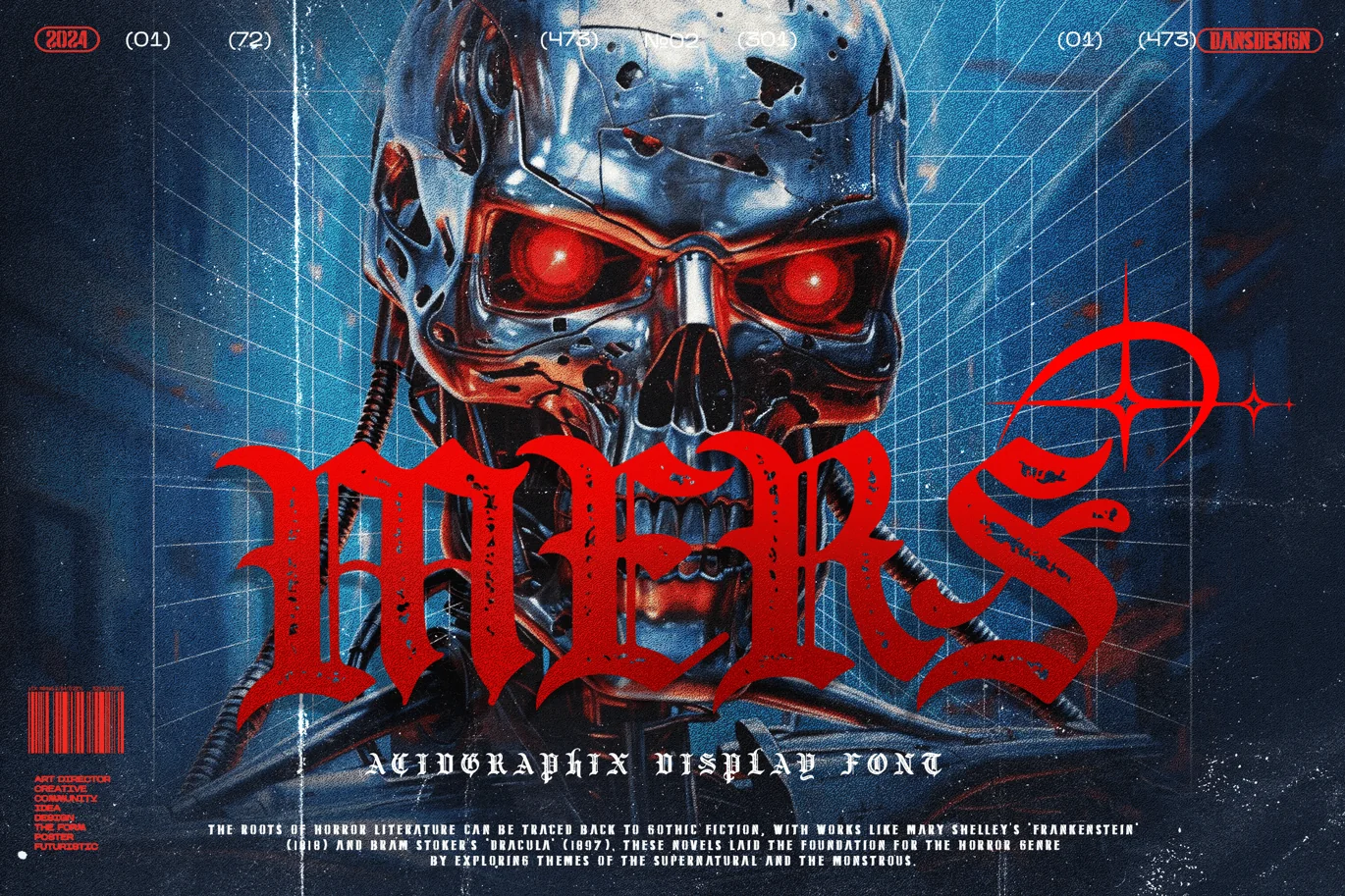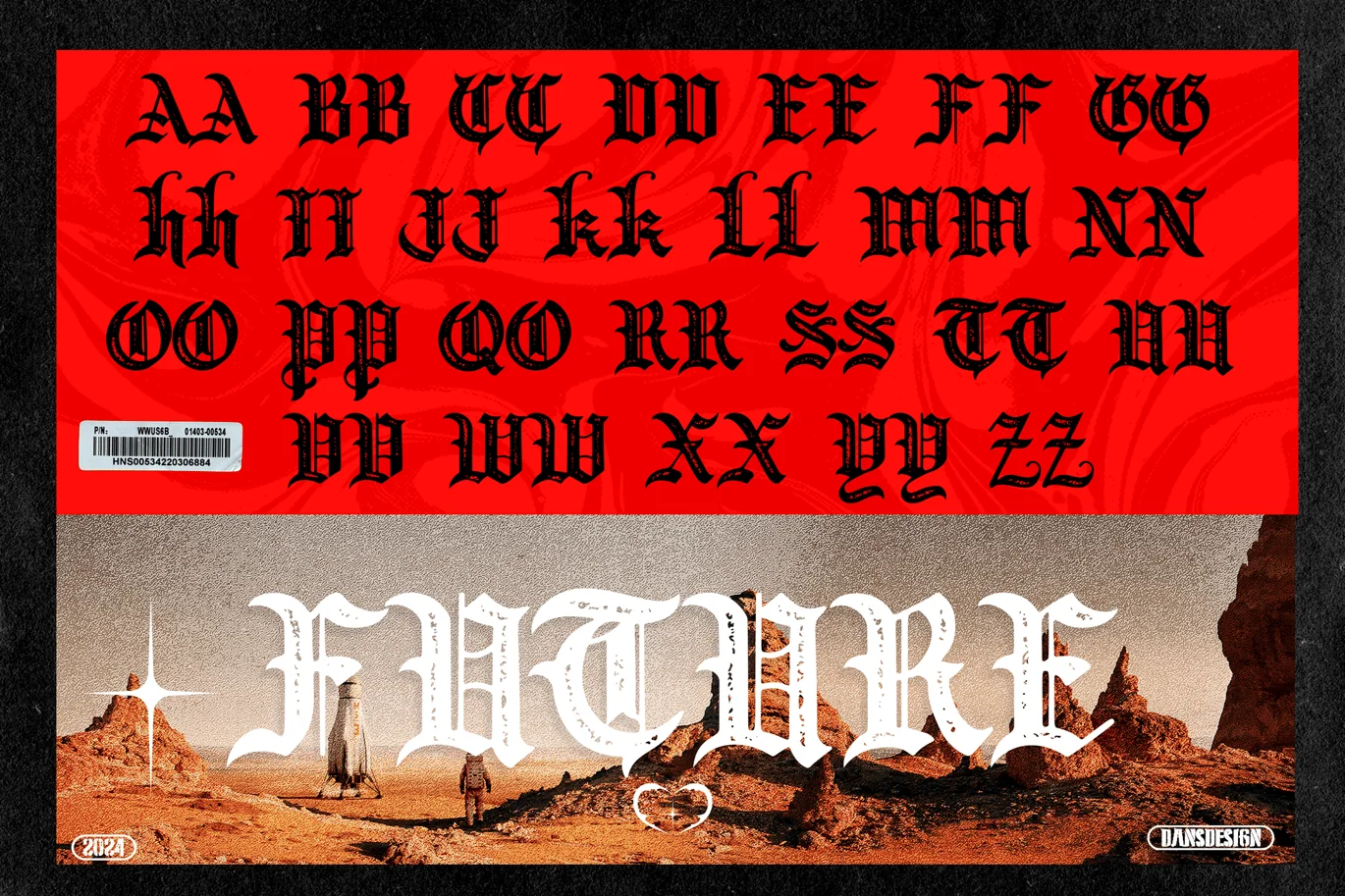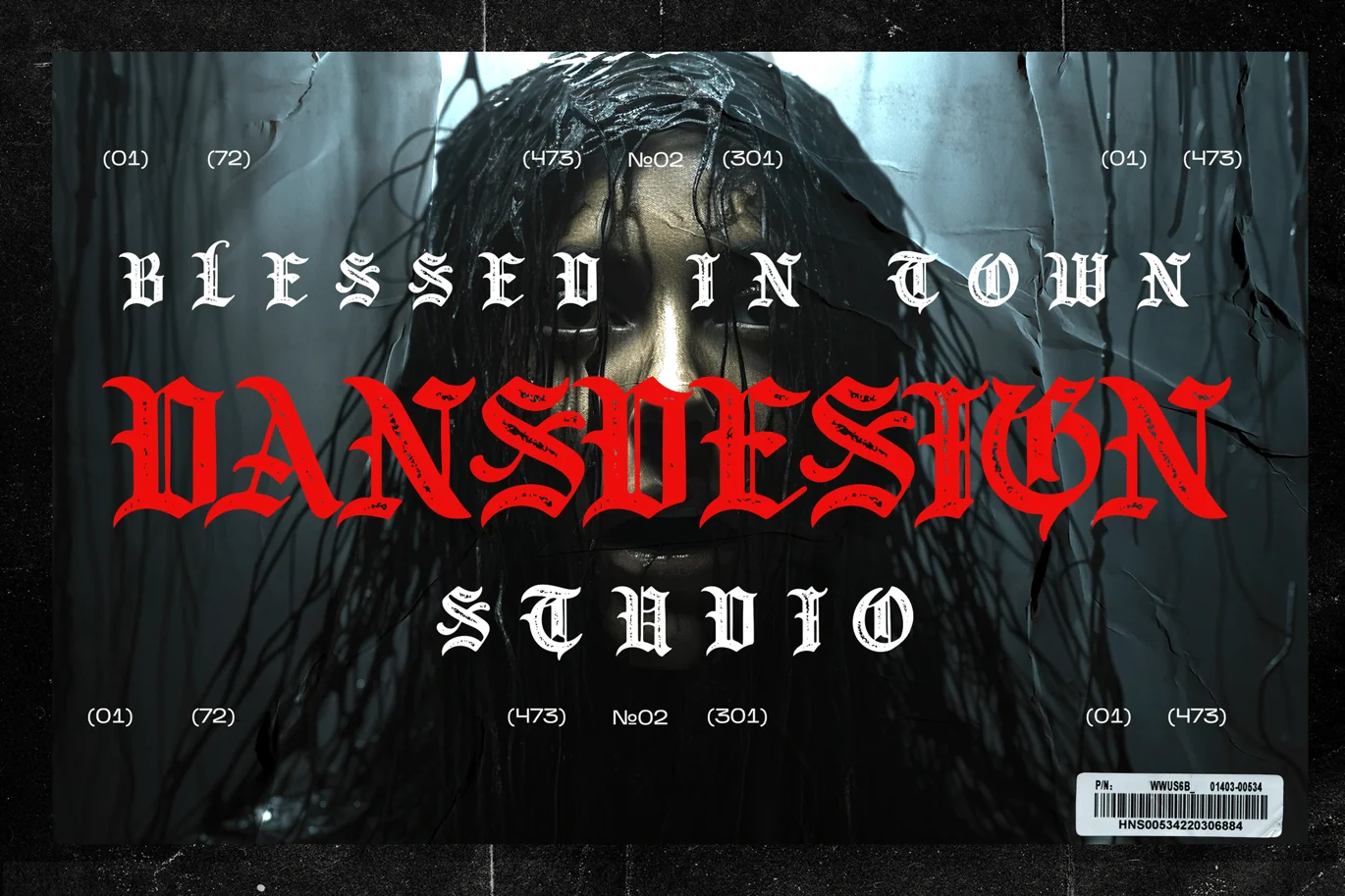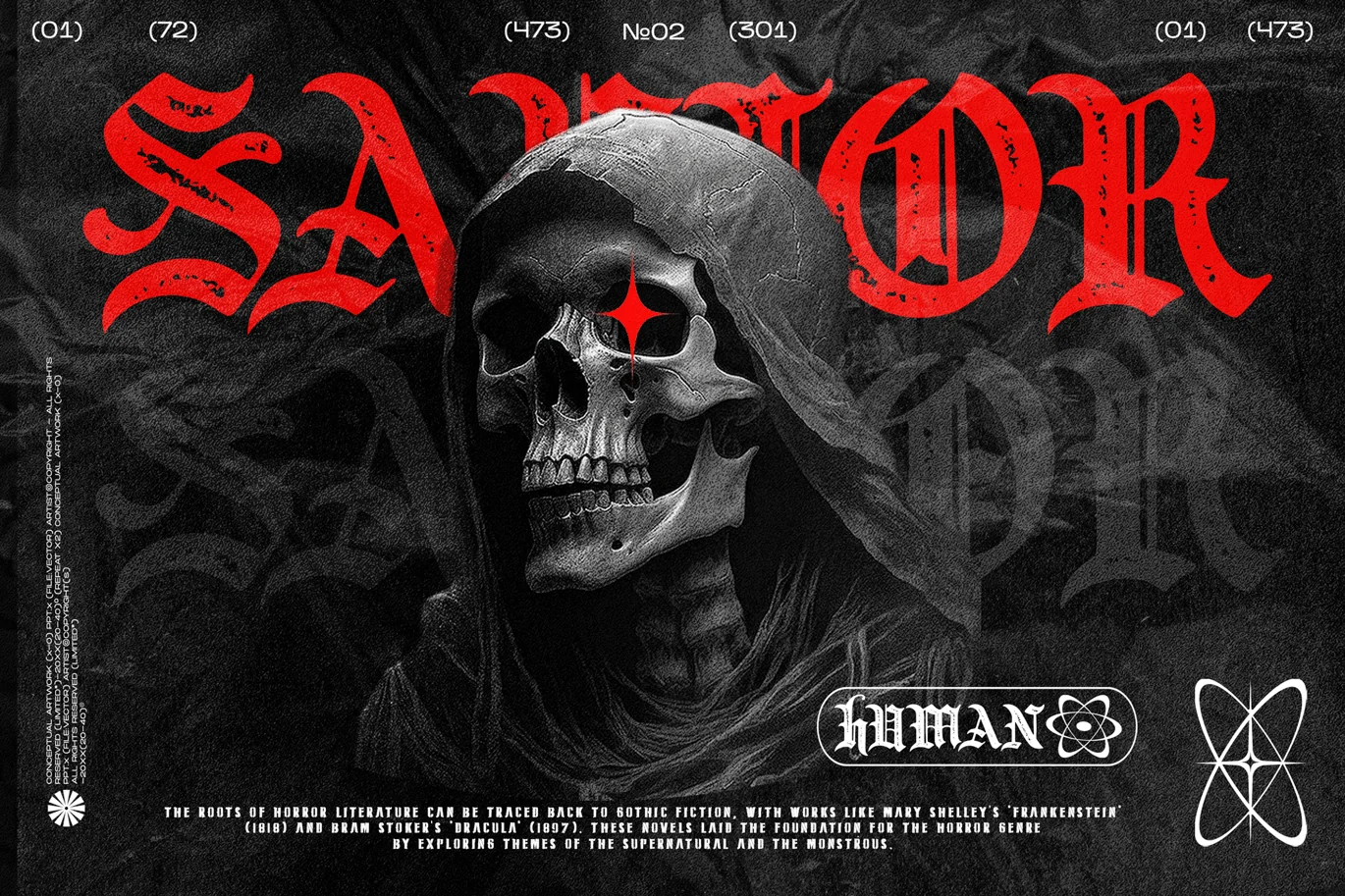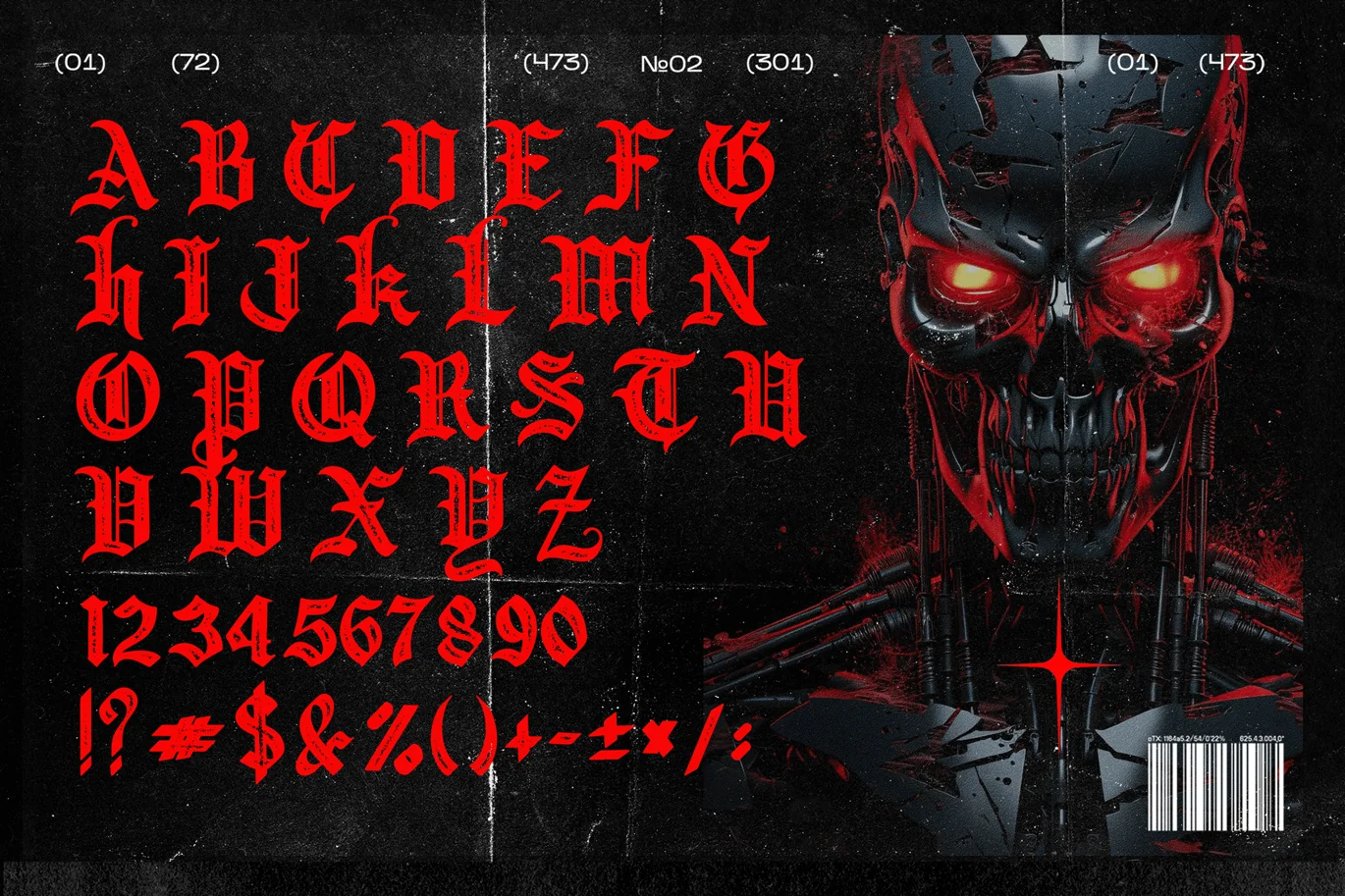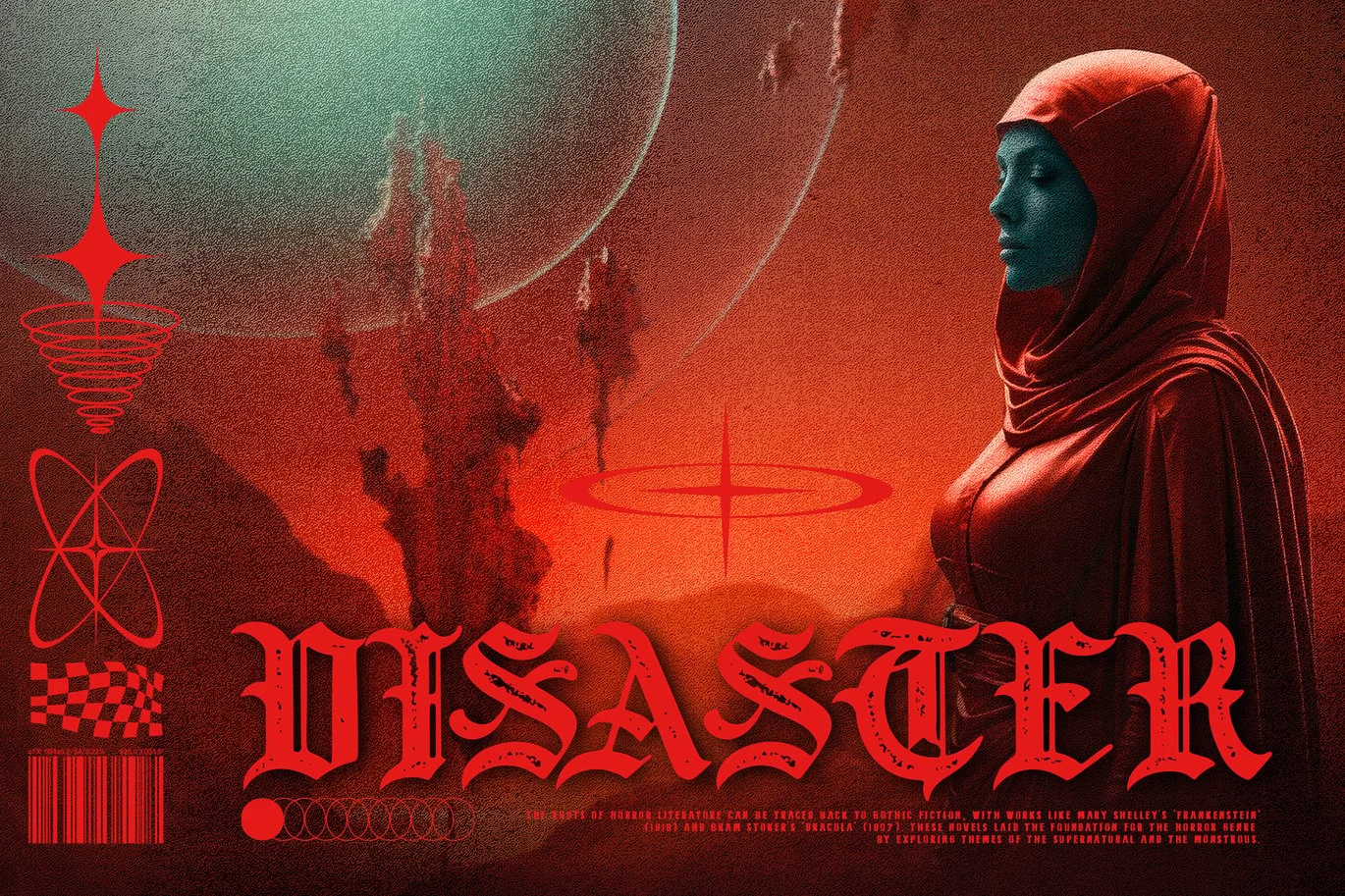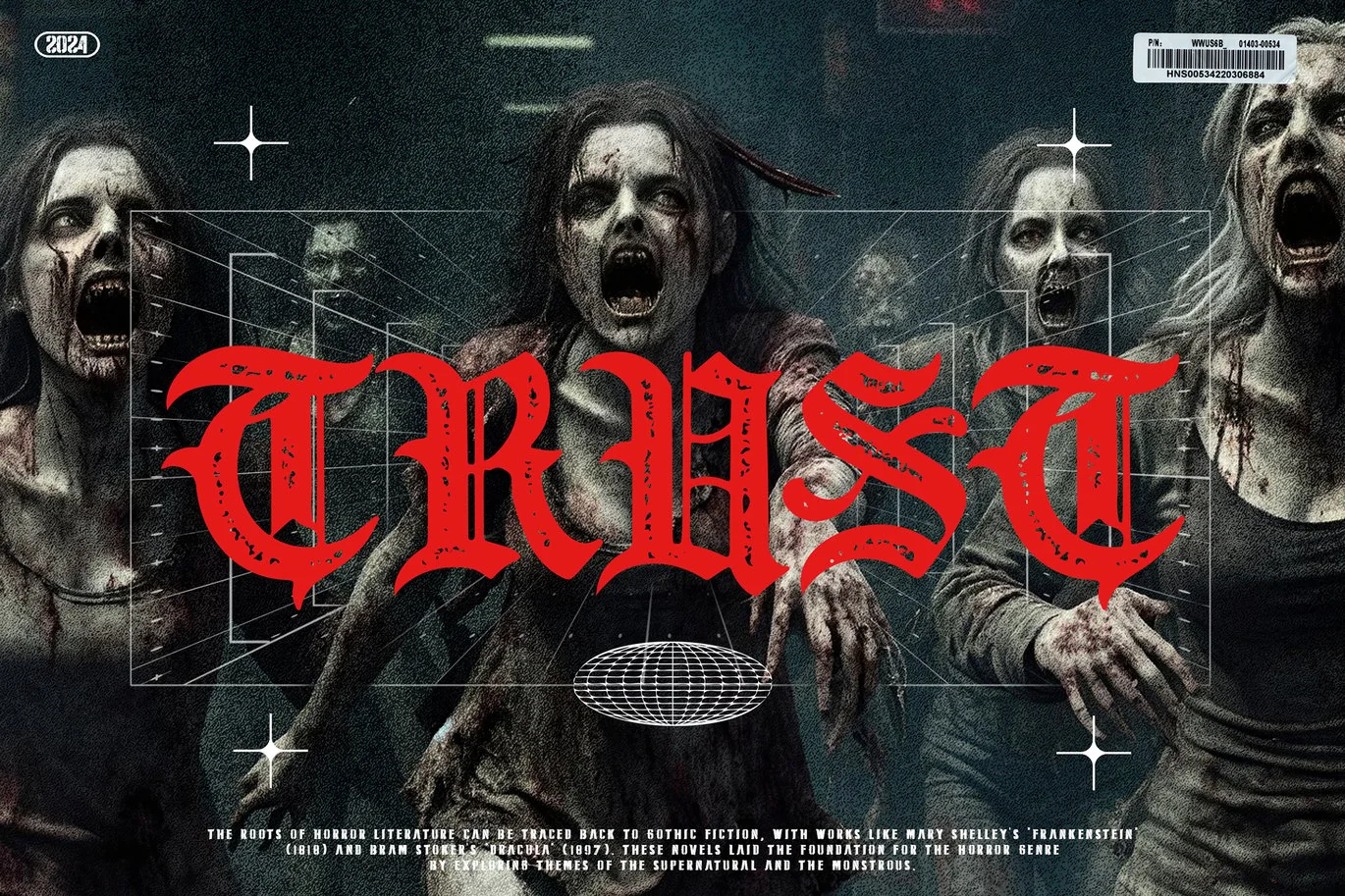
MERS Metal Gothic Acidgraphix Futurisme Font
MERS Metal Gothic Acidgraphix Futurisme Font a distinct, highly detailed, and chic Blackletter font.
It would make a great choice for exquisite retro-urban designs, tattoo business branding, logos, vintage designs, movie, poster, apparel, illustration, and more.